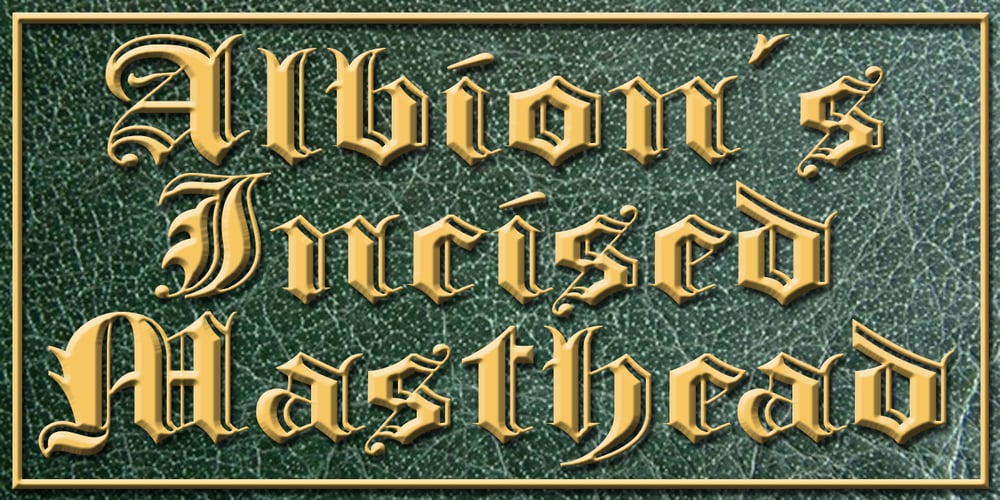
Albion’s Incised Masthead Font Family was designed by Paul James Lloyd and published by Greater Albion Typefounders. Albion’s Incised Masthead contains 1 styles and family package options. Albion’s Incised Masthead combines the heavy Black Letter forms of Greater Albion’s “Albion’s Old Masthead” with the ‘Hand-Tooled’ incised look demonstrated so readily by Mr Goudy. Another tribute to the engraver’s art…